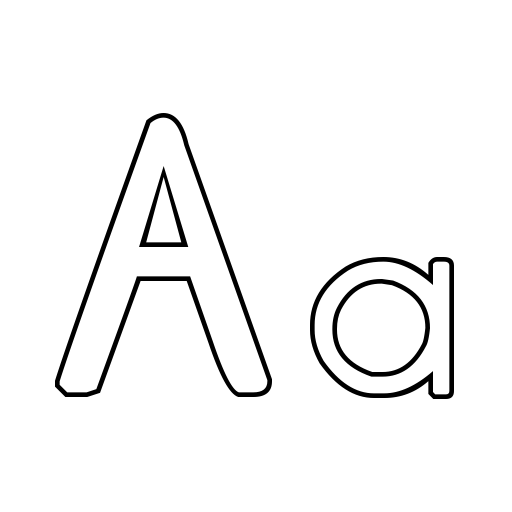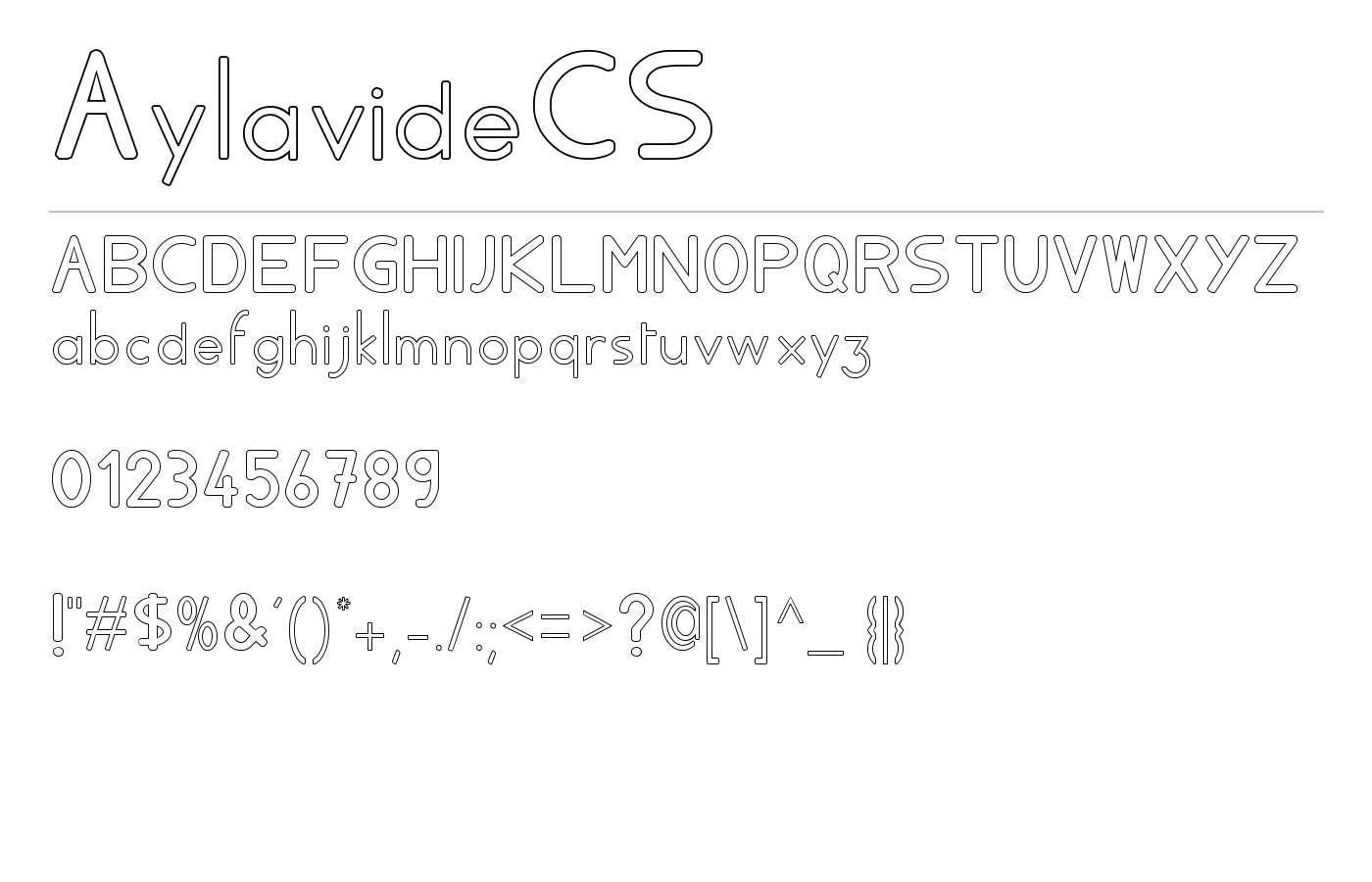
AylavideCS is a clean, modern sans-serif font characterized by its light weight and geometric, slightly rounded letterforms. The font features a monoline stroke with a high x-height that enhances readability, while its open, airy structure lends a friendly and contemporary feel. Ideal for logos, headlines, and digital use, AylavideCS works well in designs that demand clarity and a sleek, approachable aesthetic.
AylavideCS Font
About AylavideCS Font